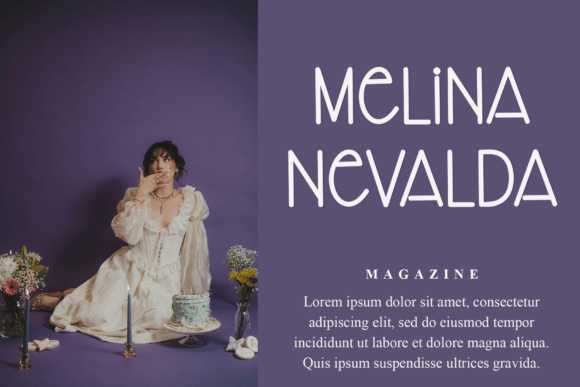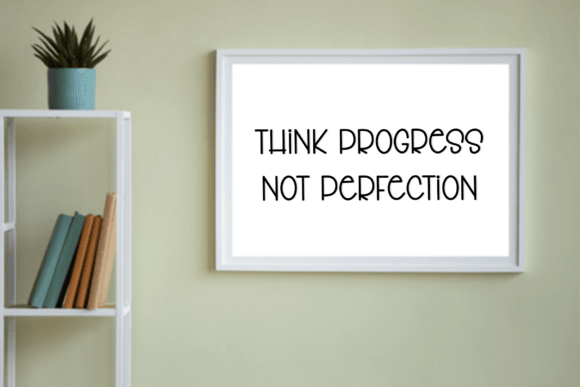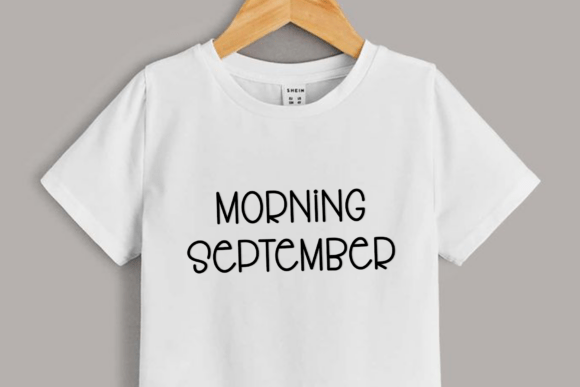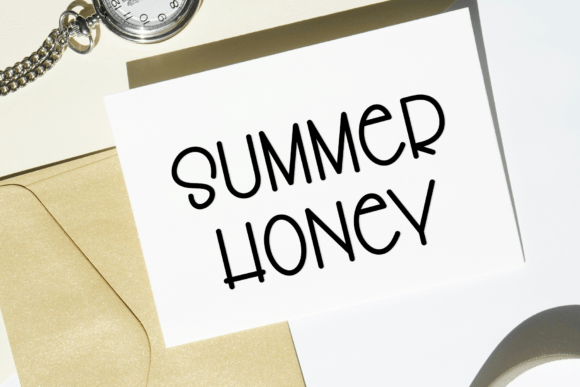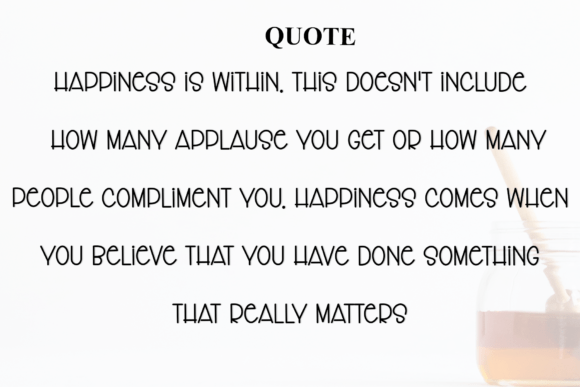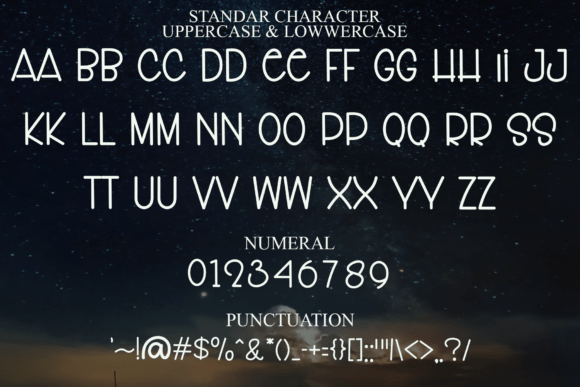
Introducing Book Sheet Font: The Perfect Blend of Warmth and Creativity
Are you tired of using the same old fonts for your personal projects, invitations, and social media graphics? Look no further than Book Sheet Font, a casual and creative font that exudes warmth and friendliness. Its round, playful strokes create a relaxed and approachable feel that’s perfect for designers and crafters looking to add a personal touch to their work.
The Charm of Book Sheet Font
Book Sheet Font is a hand-drawn font that boasts a charming, unique aesthetic. Its playful strokes and rounded edges give it a friendly and approachable feel, making it perfect for a wide range of design applications. Whether you’re creating invitations, social media graphics, or personal projects, Book Sheet Font is sure to add a fun and unique touch to your design.
Key Features of Book Sheet Font
- Hand-Drawn Aesthetic: The font’s hand-drawn aesthetic gives it a unique and charming feel that’s perfect for designers and crafters looking to add a personal touch to their work.
- Playful Strokes: The font’s round, playful strokes create a relaxed and approachable feel that’s perfect for personal projects, invitations, and social media graphics.
- Wide Range of Applications: Book Sheet Font is perfect for a wide range of design applications, including personal projects, invitations, social media graphics, and more.
Why Choose Book Sheet Font?
So why choose Book Sheet Font over other fonts on the market? Here are just a few reasons why designers and crafters love this font:
- Unique Aesthetic: Book Sheet Font boasts a unique and charming aesthetic that’s sure to set your designs apart from the crowd.
- Easy to Read: The font’s playful strokes and rounded edges make it easy to read, even at small sizes.
- Versatile: Book Sheet Font is perfect for a wide range of design applications, from personal projects to social media graphics.
How to Use Book Sheet Font in Your Designs
Using Book Sheet Font in your designs is easy. Here are a few tips to get you started:
- Pair it with Other Fonts: Book Sheet Font pairs well with other fonts, including sans-serif and script fonts.
- Use it for Headings and Titles: The font’s playful strokes and rounded edges make it perfect for headings and titles.
- Add it to Your Social Media Graphics: Book Sheet Font is perfect for social media graphics, including Facebook posts, Instagram stories, and more.
- Use it for Invitations: The font’s charming aesthetic makes it perfect for invitations, including birthday parties, baby showers, and more.
Book Sheet Font is a casual and creative font that’s perfect for designers and crafters looking to add a personal touch to their work. Its charming, hand-drawn aesthetic and playful strokes create a relaxed and approachable feel that’s perfect for personal projects, invitations, and social media graphics. With its PUA Encoded glyphs and compatibility with most design applications, Book Sheet Font is a versatile font that’s sure to become a staple in your design toolkit.
Get Ready to Elevate Your Designs with Book Sheet Font